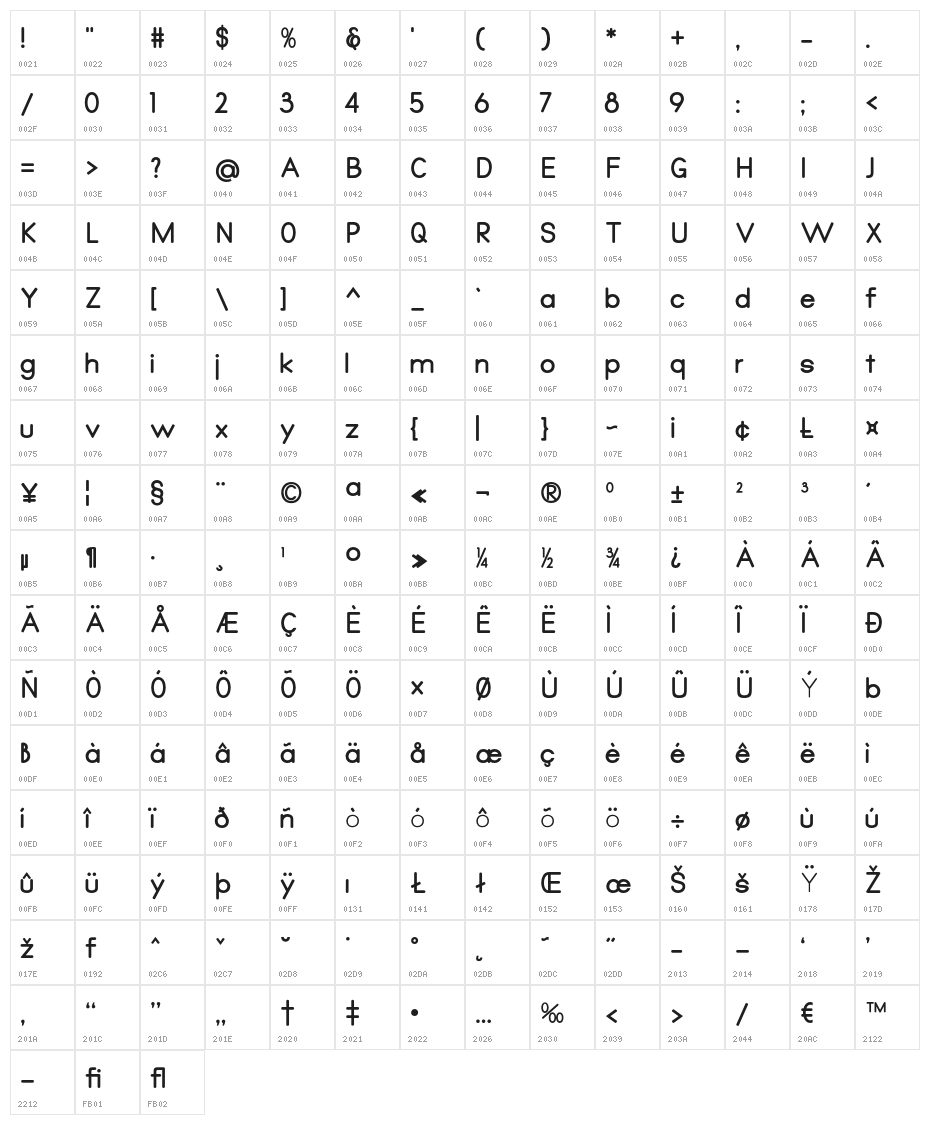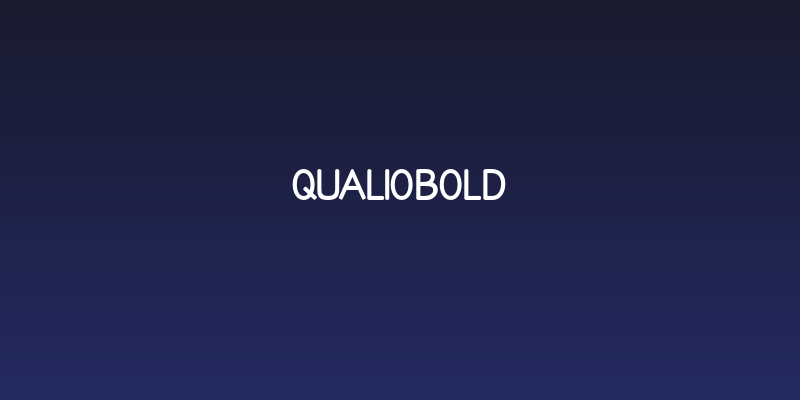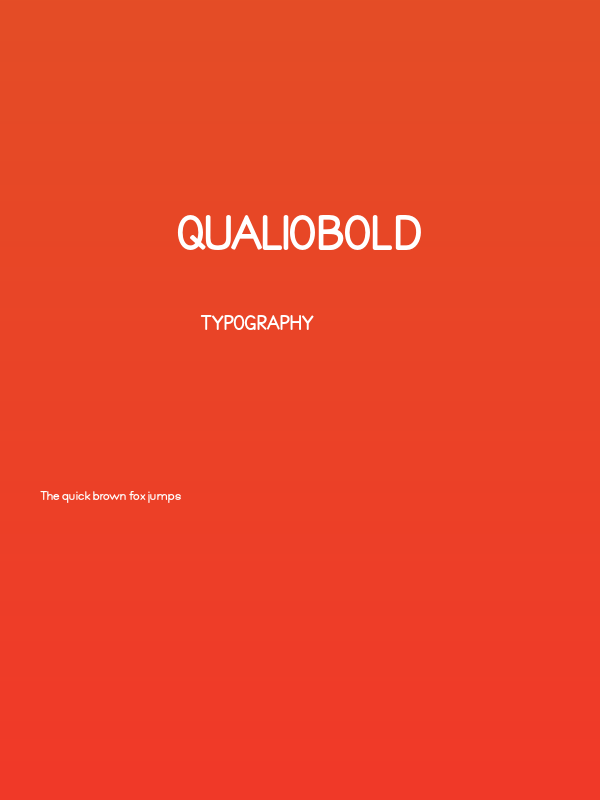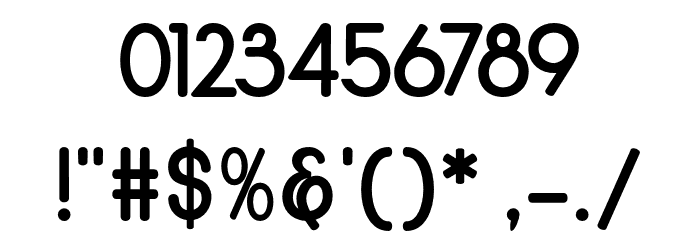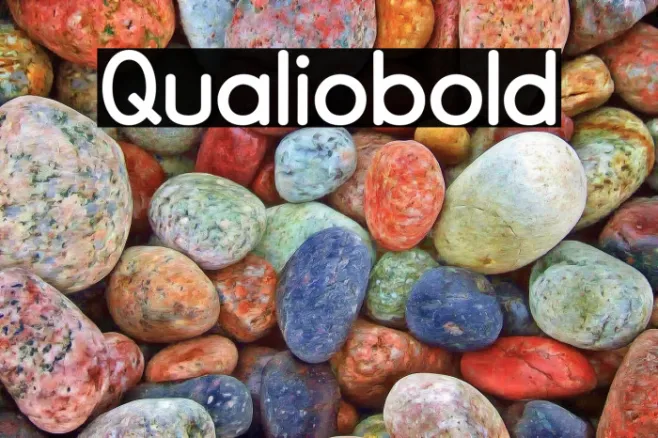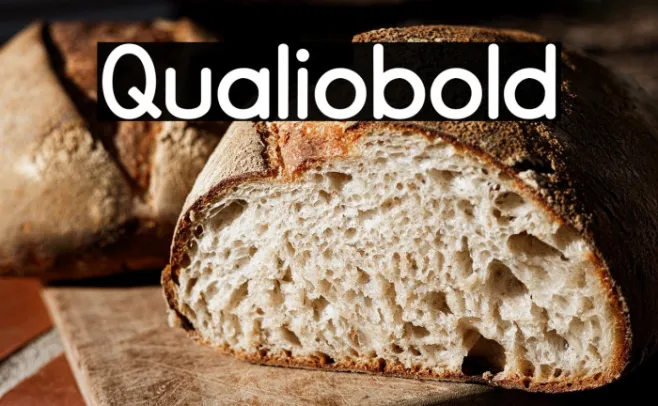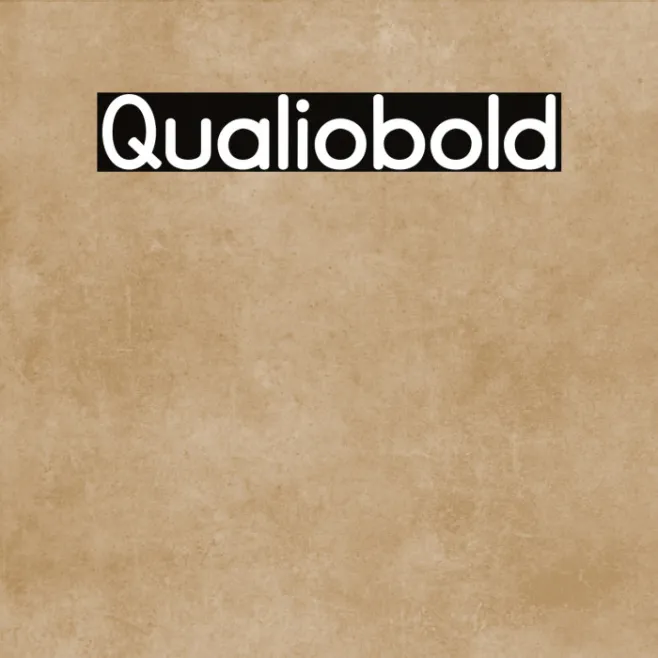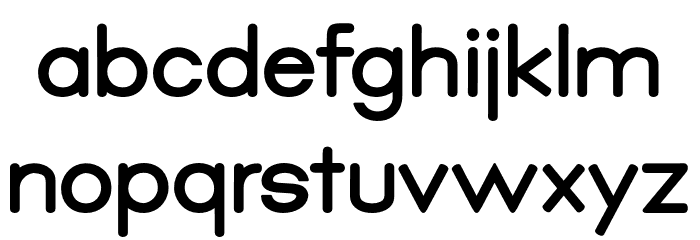
Qualiobold Font
Qualiobold Description
This font features a clean and modern sans-serif style with rounded edges, giving it a friendly and approachable appearance. The characters are evenly spaced, contributing to its readability. The uniform stroke width across all characters provides a consistent and balanced look. It includes a full set of uppercase and lowercase letters, numerals, and a variety of special characters, making it versatile for different design needs. The rounded terminals add a soft touch, enhancing its contemporary feel. This font is suitable for both digital and print media, offering a sleek and professional aesthetic.